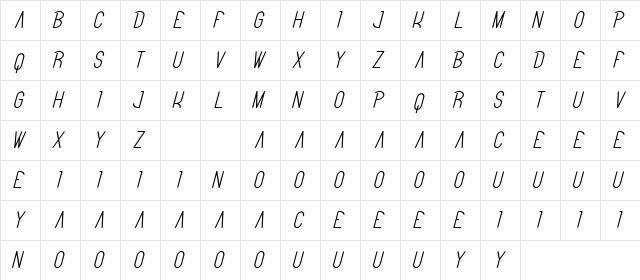
Bitter Space Demo Italic
Design Context for Bitter Space Demo Typeface
Bitter Space Demo offers clean, dependable letterforms without strong stylistic allegiance, making it a practical choice for designers who need flexibility. Its italic angle brings a sense of urgency and motion to the letterforms.
Pro Tip: Use Bitter Space Demo for emphasis, pull quotes, and subheadings where its slanted energy can add rhythm to the layout.